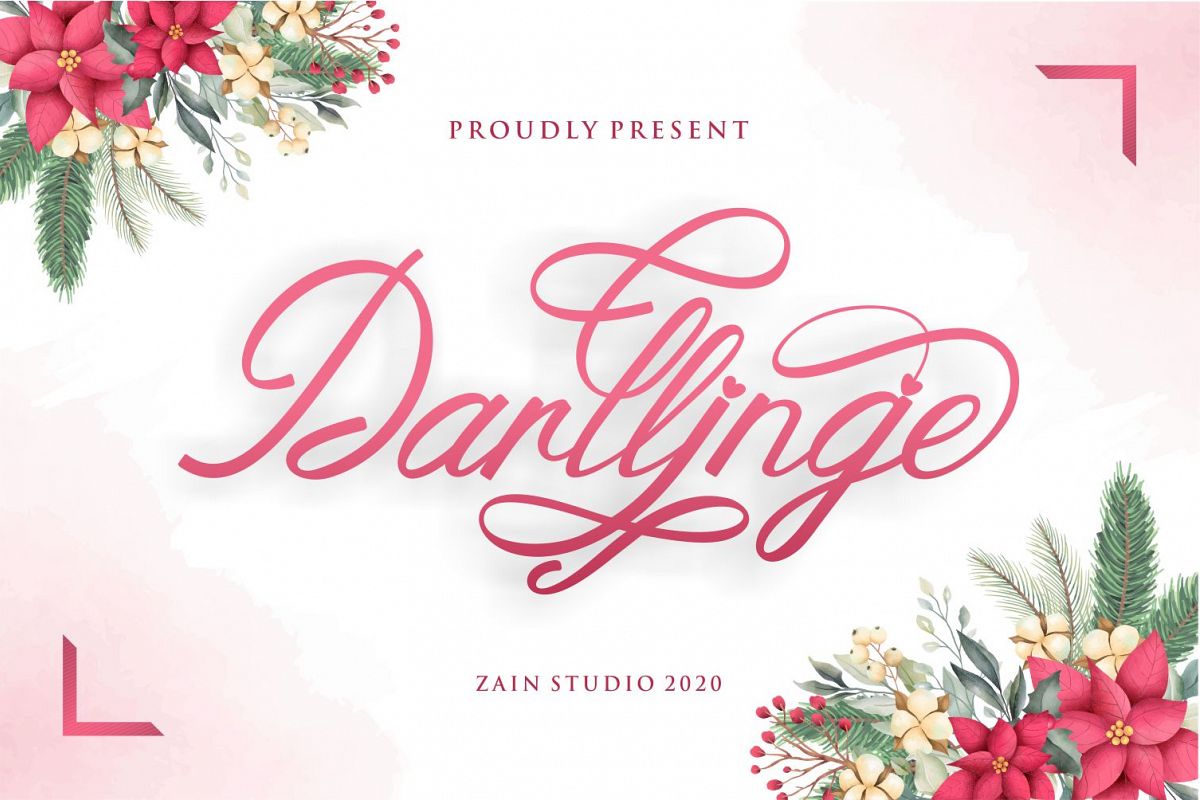
Darllinge
Darlinge
Darllinge is a modern calligraphy font, It is perfect for branding,logo, wedding invites, every other design which needs a handwritten romantic touch.
Decorative and handwritten or creative style script font for your new projects. With multi language support and lot of stylistic alternates & swashes.